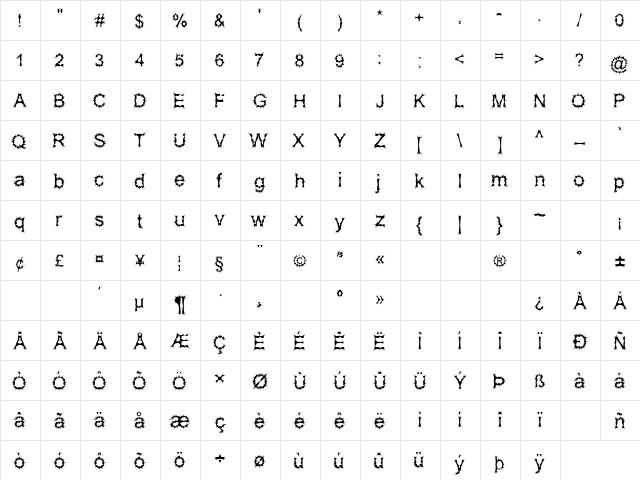
Satan Possessed Regular
Design Context for Satan Possessed Typeface
Satan Possessed takes a measured approach to typography — its balanced proportions and neutral character make it a reliable workhorse for both digital and print work.